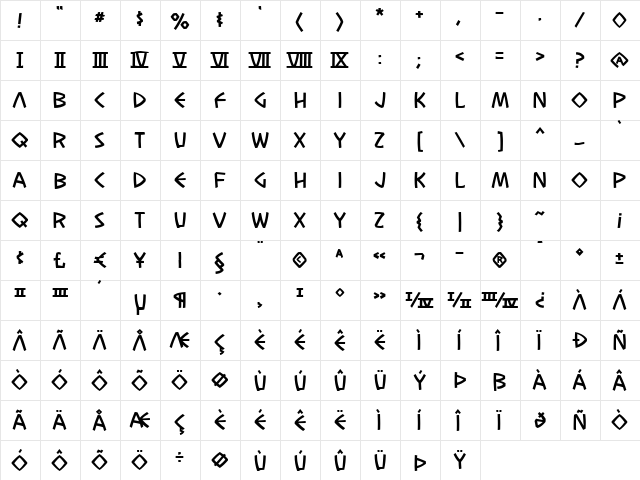
Las Vegas to Rome Regular
Design Context for Las Vegas to Rome Typeface
Las Vegas to Rome is a composed and adaptable typeface that performs quietly and consistently across a wide range of design contexts.